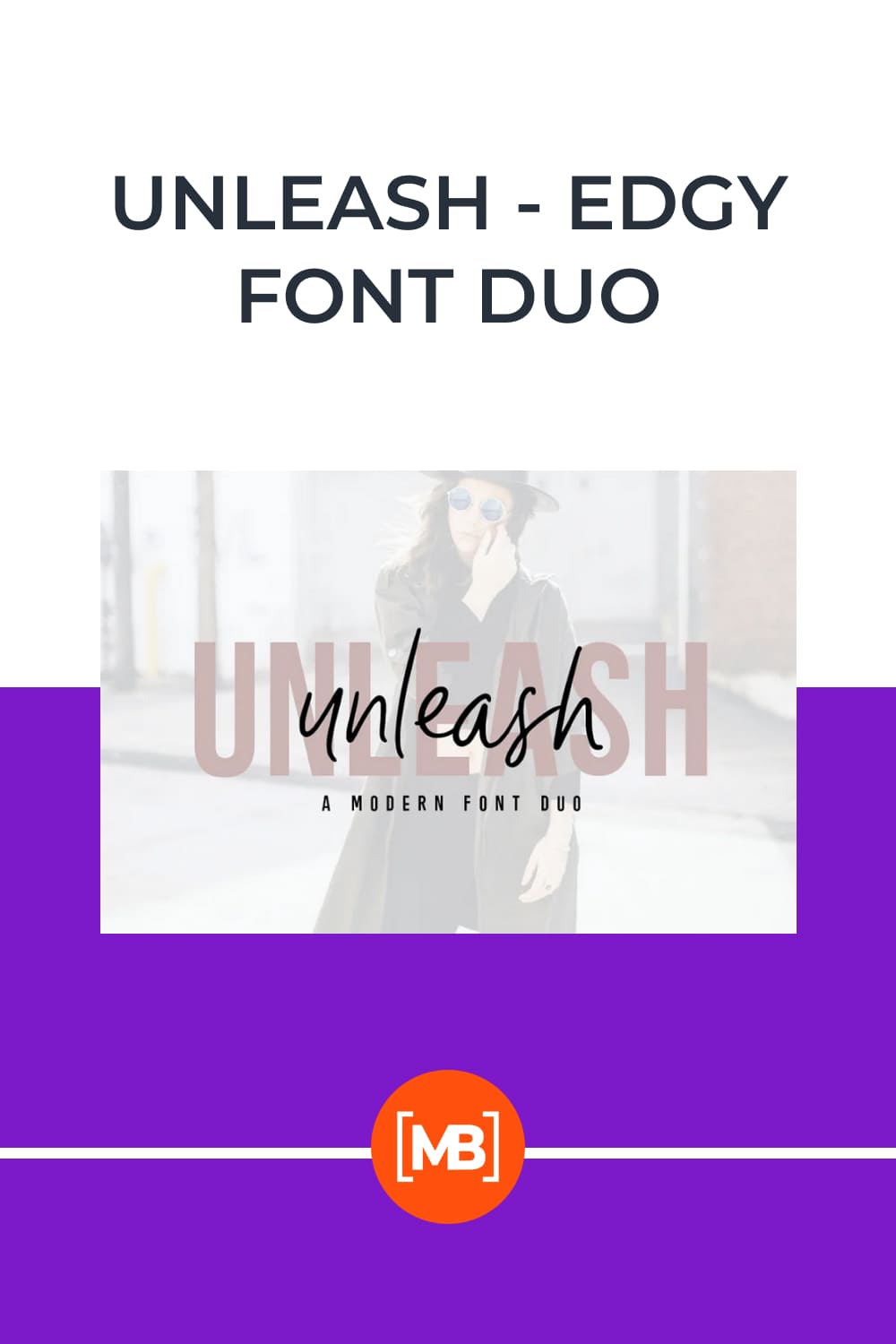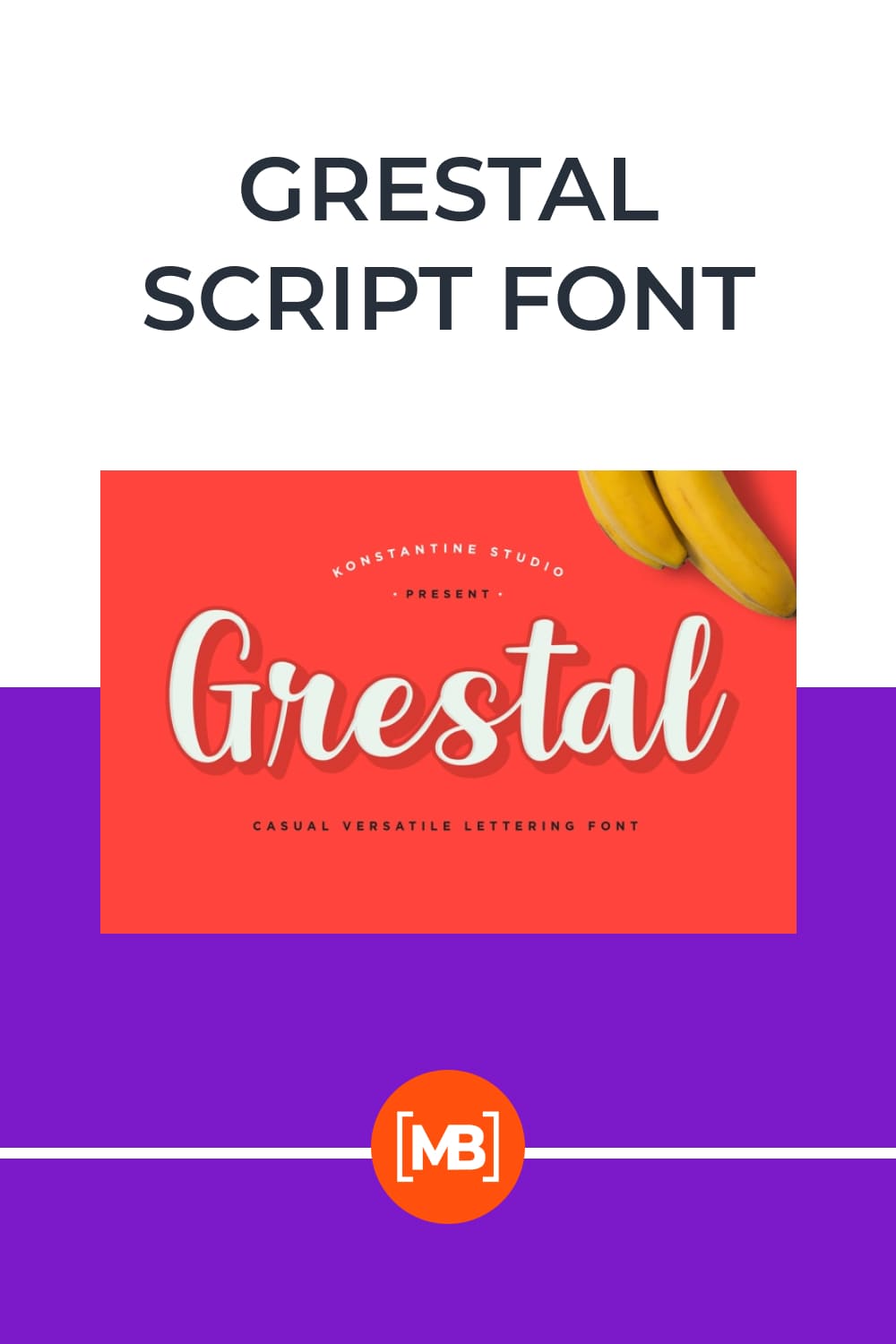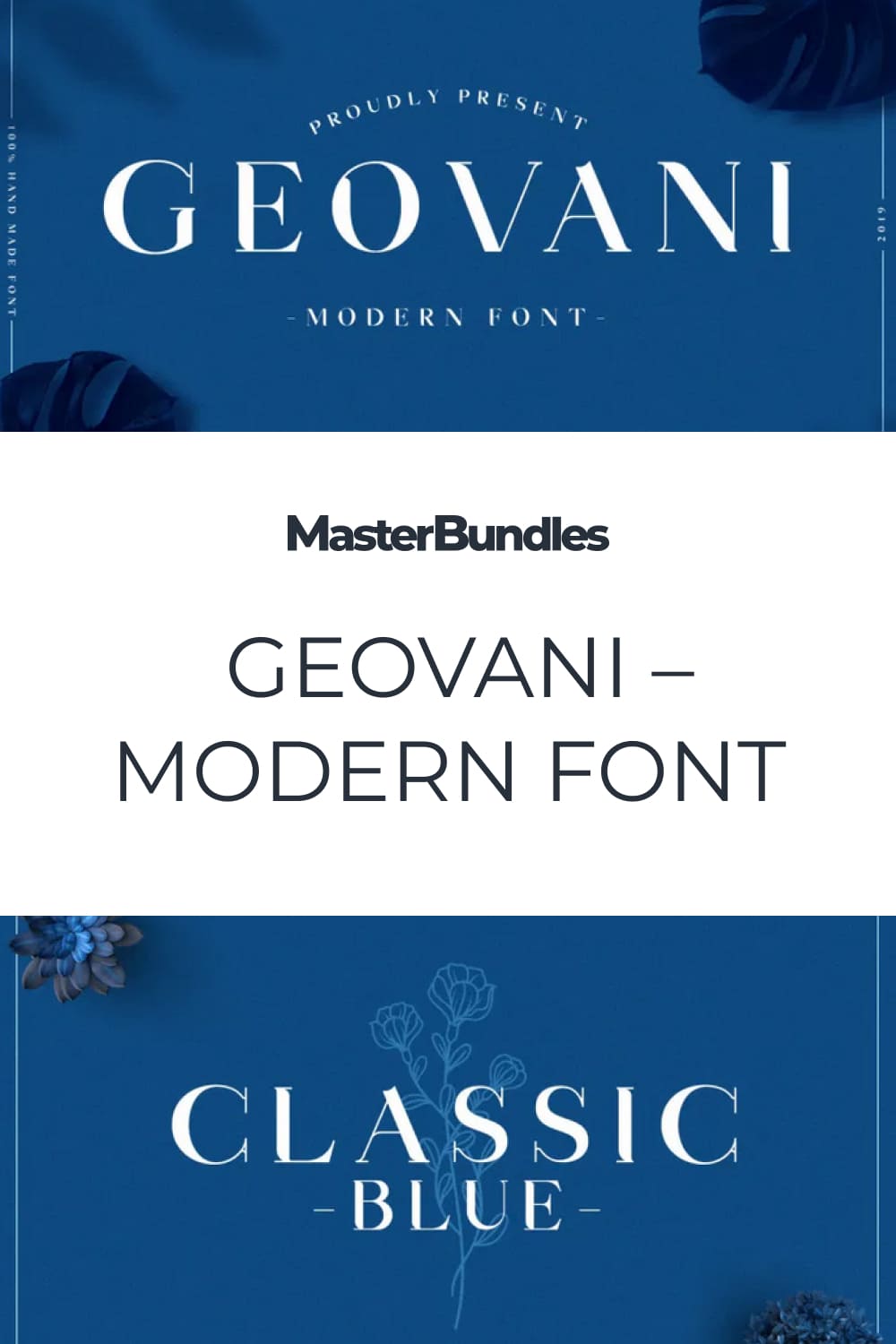
25+ Best Edgy Fonts in 2023 (Free & Premium )
Edgy Fonts. Typography is a key component of any project. Fonts are used everywhere because they help convey the message with a particular style. When deciding which typefaces to use, remember—the simpler the better. But don’t get frustrated, simple doesn’t have to mean boring and uninteresting. By that, we mean choosing two basic fonts, which you can find in our fresh selection of edgy fonts.
The script should match your project purpose. It can set a certain mood that you want to bring. It may be designed for long reading, or it may be almost unreadable, but it works as a powerful graphic element by itself. Psychologists have proven that typography is highly influential in the audience’s perception of the entire design and meaning of the project (website, presentation, book covers, prints, business cards, logos, etc.).
If you are still undecided about this tool for the project, then we offer you a selection of the best edgy fonts that are easy to edit and look eye-catching!
Top Edgy Fonts
Marcellines Modern Calligraphy Font
Modern Calligraphy Font Dilovany
Youngbae Modern Regular Font
Best Premium Edgy Fonts
Best Free Edgy Fonts